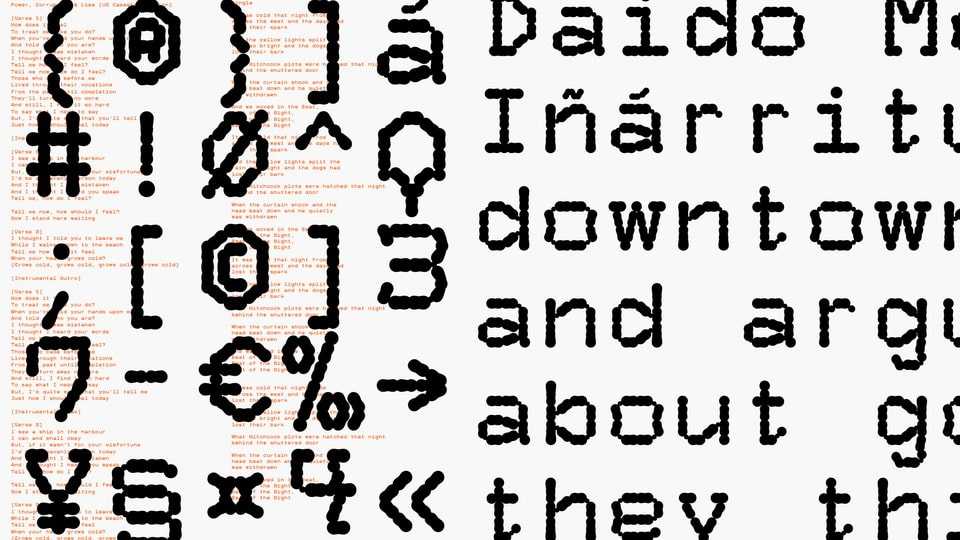
Download Sector Mono font, an OCR/modular inspired typeface commissioned in 2020 by Amsterdam-based artist Juan Arturo García. His project ‘Taxonomic Ambiguity’ explores sociopolitical mechanisms of language behind ecological issues, particularly in Mexico.
Designer: Mateo Broillet